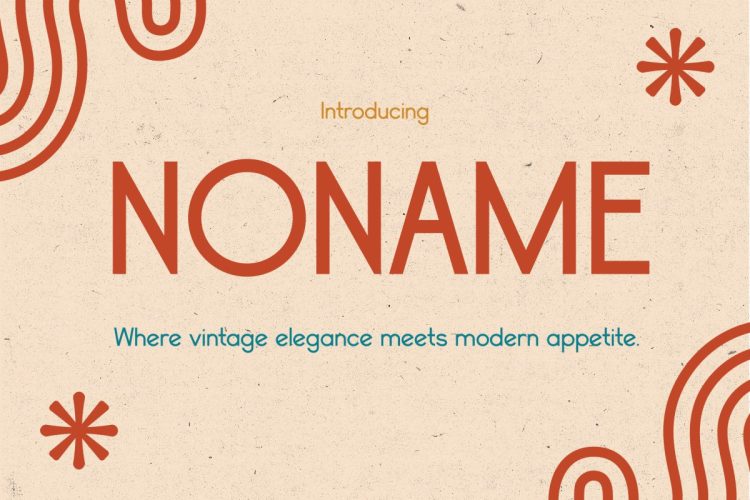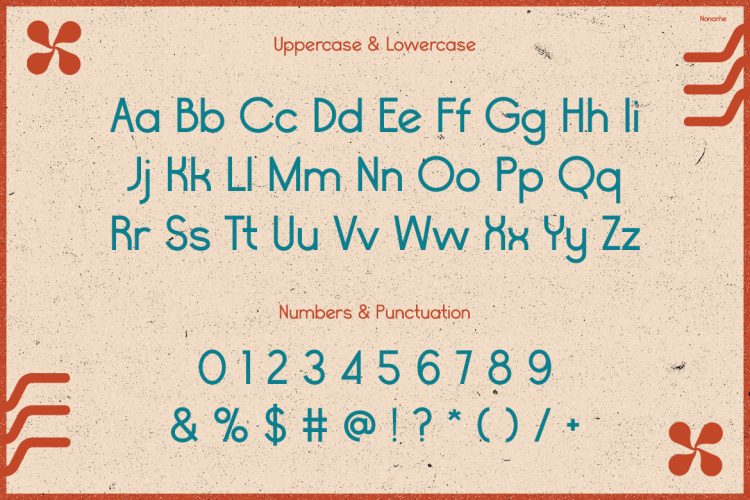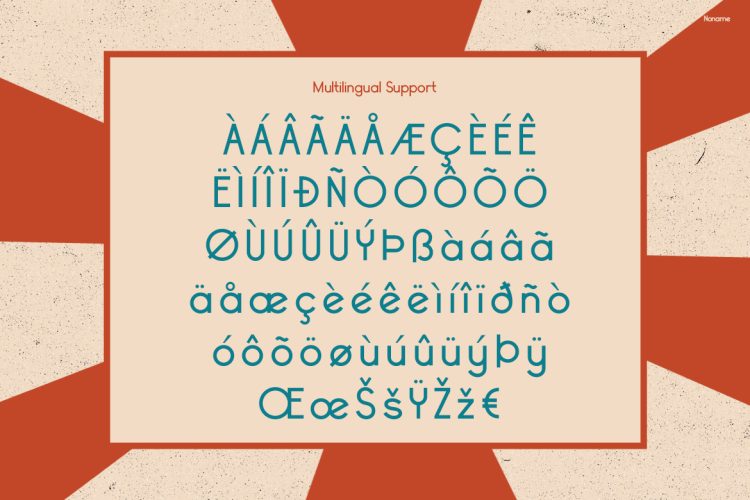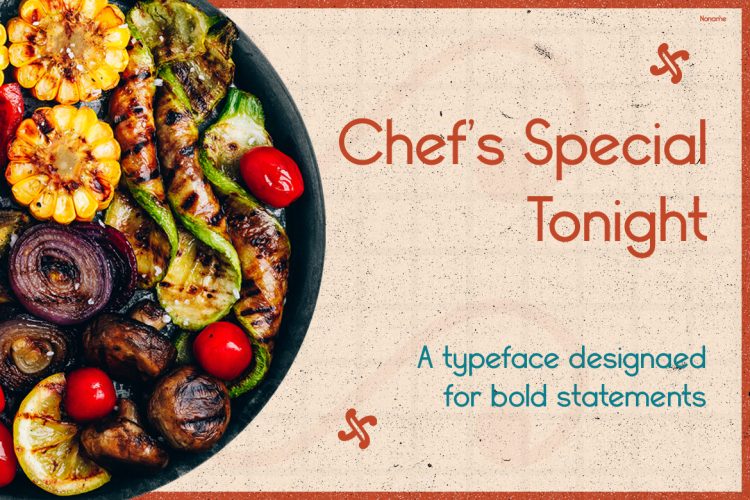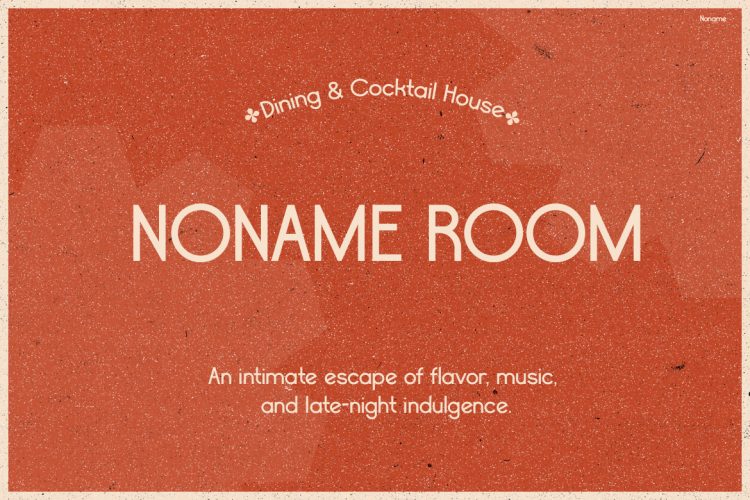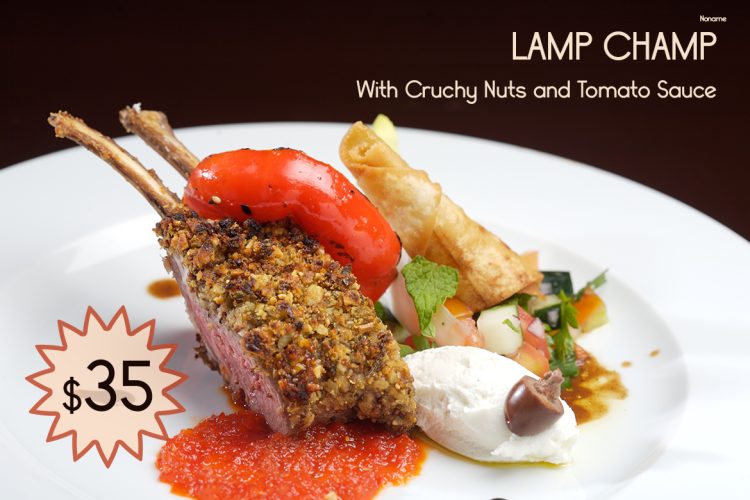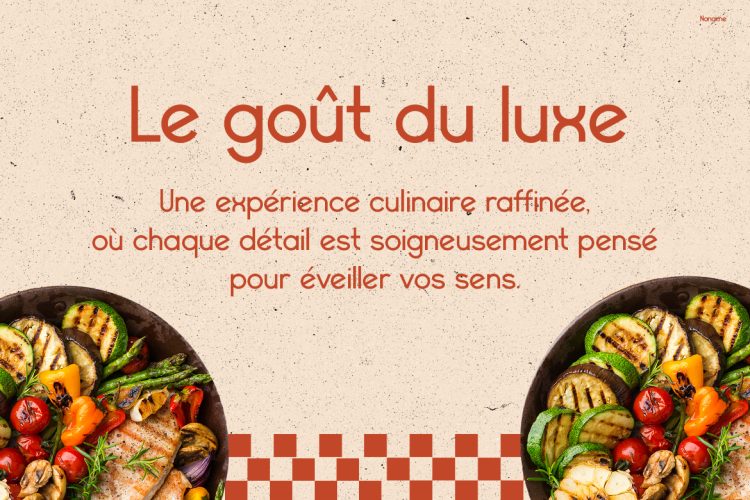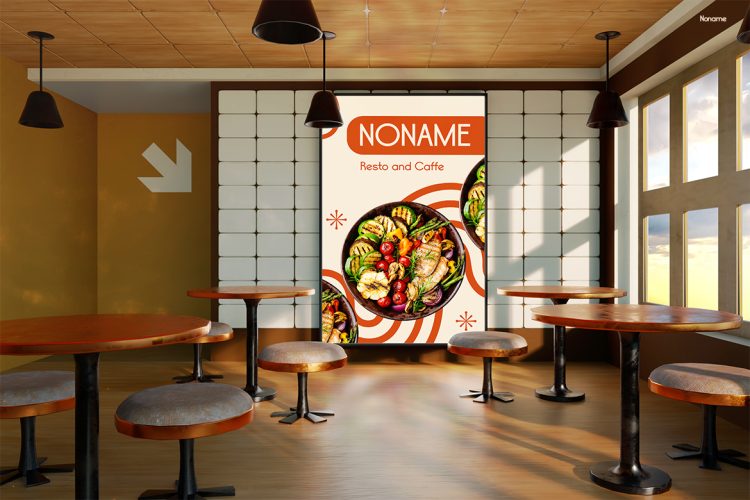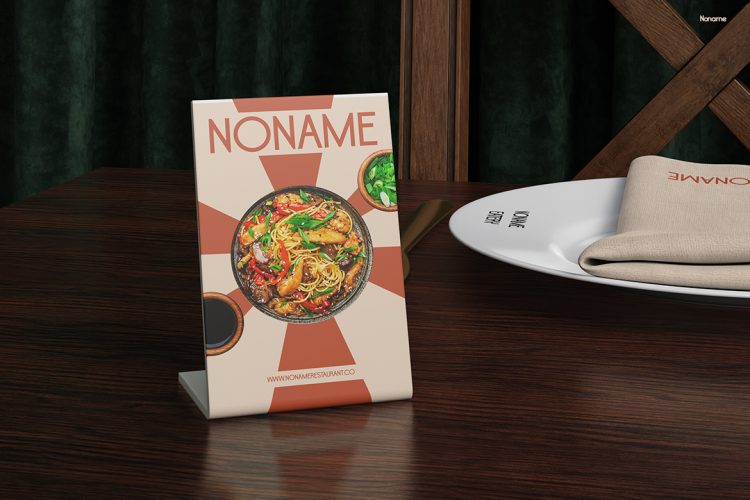
Noname โ Retro Elegance with a Modern Twist
Retro Font Noname blends vintage charm with modern clarity; therefore, it creates a timeless yet stylish visual identity. Moreover, its clean letterforms, subtle retro details, and balanced spacing make it both elegant and highly readable. As a result, this font stands out in editorial layouts, restaurant branding, and premium packaging. In addition, its aesthetic captures a warm nostalgic feel while still looking fresh and contemporary. Not only that, but with Multilingual Support (67 Languages), it ensures your designs communicate seamlessly across global audiences.
Retro Font Noname is crafted for designers who want a refined yet approachable vintage look; consequently, it works beautifully in both print and digital media. For example, it enhances menus, posters, and branding materials with a sophisticated retro vibe. Furthermore, its versatility allows it to adapt easily to minimalist layouts or more decorative compositions. At the same time, it maintains a clean and professional tone, making it perfect for upscale visual storytelling.
This font is ideal for restaurant owners, cafรฉ brands, and hospitality businesses; additionally, it suits graphic designers working on editorial and lifestyle projects. Likewise, itโs perfect for menus, food packaging, boutique branding, and vintage-inspired campaigns. On top of that, creative agencies and content creators can use it to build a warm, memorable brand presence.
Final Thought
Ultimately, if you want to capture attention with a classy retro feel, Retro Font Noname is your go-to choiceโso elevate your branding and make every detail unforgettable today!